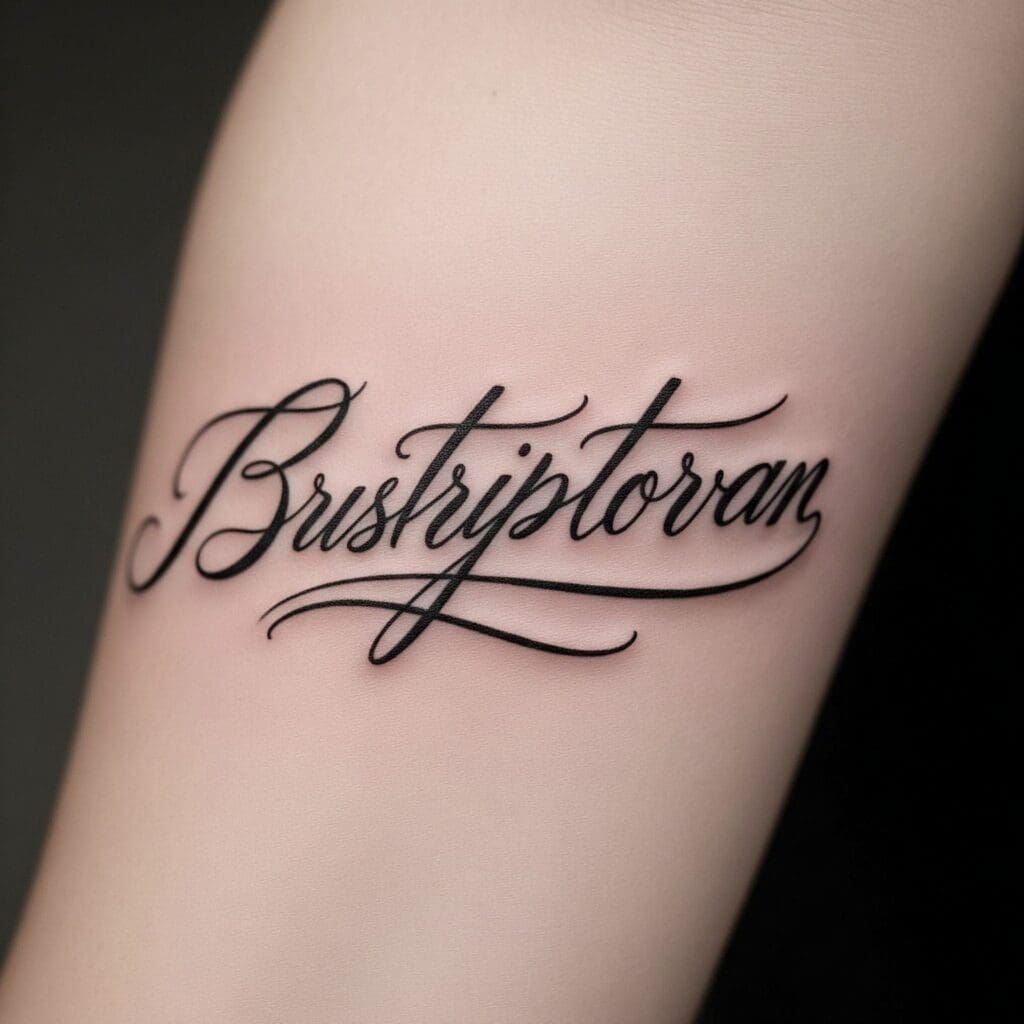
Imagine a cursive tattoo font generator that transforms your ideas into elegant, hand-drawn scripts—ideal for body art, tattoo design, or artistic expression. This tool empowers creators to craft unique, flowing cursive styles with precision and flair.
A cursive tattoo font generator blends artistic flair with digital functionality, allowing users to design flowing, organic letterforms inspired by traditional tattoo scripts. Whether you're a tattoo enthusiast, graphic designer, or personal brand advocate, this tool offers customizable strokes, spacing, and pressure sensitivity to mimic real ink on skin. Generate fonts that capture movement, rhythm, and emotion—perfect for custom tattoo art, jewelry engravings, or meaningful tattoo phrases.
With an advanced cursive tattoo font generator, adjust every detail—thickness, curvature, ligatures, and spacing—to match your style. Experiment with bold, delicate lines or hybrid styles blending traditional tattoo motifs with modern typography. Real-time preview ensures accuracy, helping you perfect each font before finalizing. Ideal for creating one-of-a-kind tattoo designs or branded script elements that stand out.
Beyond aesthetics, a cursive tattoo font generator unlocks creative freedom and personal expression. It bridges digital design and tattoo artistry, letting you visualize how a phrase looks on skin before ink. Ideal for artists, tattoo studios, and individuals seeking meaningful, stylish text that feels alive—like a whispered secret or a permanent declaration.